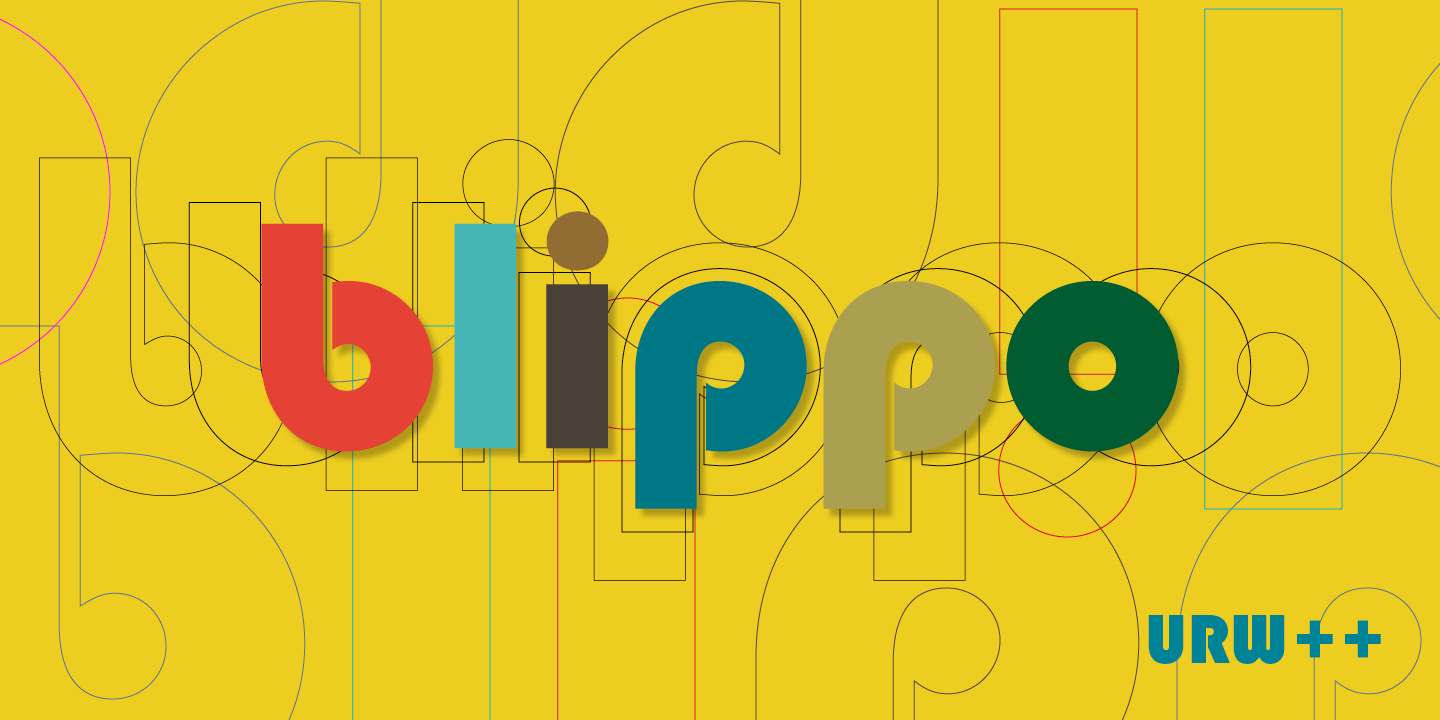
The Blippo Black Font is an unmistakable choice for projects that demand a bold, assertive, and unmistakably retro aesthetic with immense visual impact. It’s perfectly suited for psychedelic posters, 1960s and 70s-themed branding, music album covers (especially for funk, soul, or psychedelic rock), event flyers, comic book titles, and any design that requires a powerful, chunky, and highly expressive typeface. Its iconic, rounded, and extremely heavy character makes it ideal for conveying a sense of playfulness, rebellion, and vibrant energy.
What makes Blippo Black Font so exciting is its sheer, unadulterated visual power and its instant nostalgic appeal. With its extraordinarily thick strokes and rounded, almost blob-like forms, it commands attention and fills space like no other. This font isn't just about reading words; it's about experiencing a burst of pop-art energy and a joyful defiance of typographic norms. It excels at delivering maximum visual impact in headlines and display contexts, ensuring your messages are bold, memorable, and infused with a distinctive, groovy vibe. Its unique design makes it instantly recognizable and a favorite for conveying a sense of fun and retro cool.
The Blippo Black Font family typically focuses on its core, heavy, and impactful nature, as it is primarily a display typeface. You will generally find a single, strong regular style that embodies its signature chunky aesthetic. Given its specific design purpose, variations usually aren't extensive, as its strength lies in its singular, powerful presence. However, designers might experiment with color, texture, or layering effects to further enhance its visual punch, while maintaining its iconic, bold character.
Whether you're creating a vibrant music festival poster, designing a retro-inspired product label, or crafting engaging content that needs to make a loud and proud statement, the Blippo Black Font Free Download offers an indispensable tool. Its commanding visual presence and undeniable character make it a premier choice for any project that needs to deliver a strong, unforgettable message with a burst of retro personality.